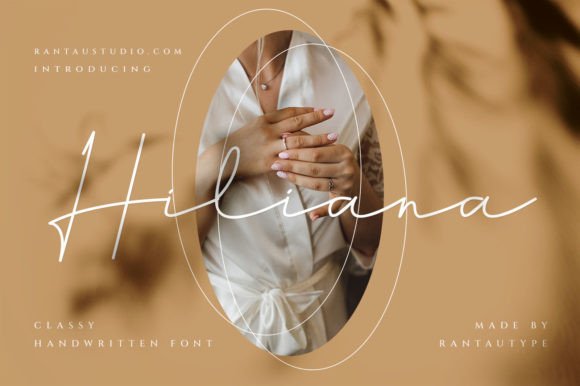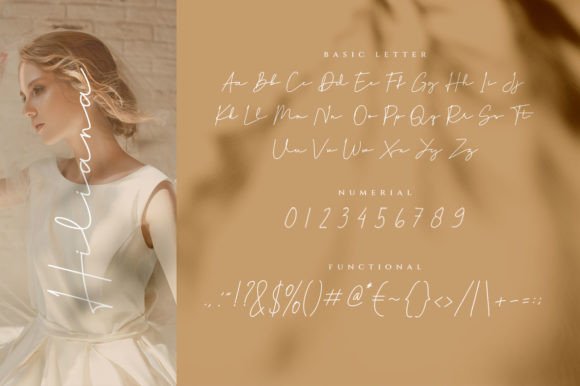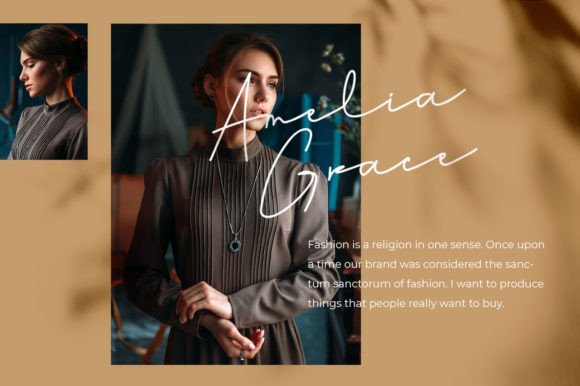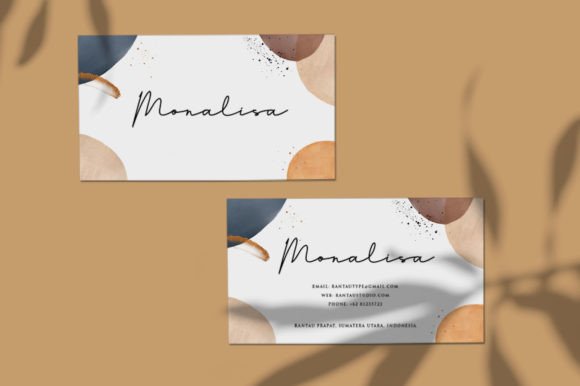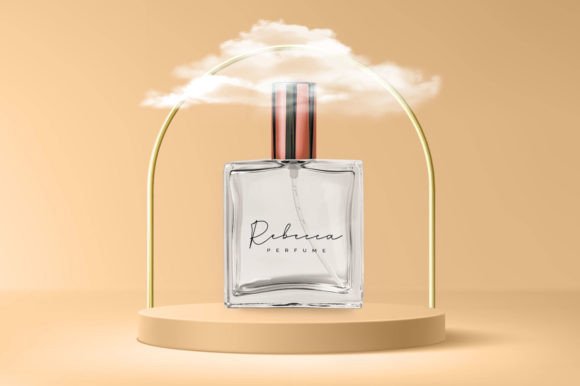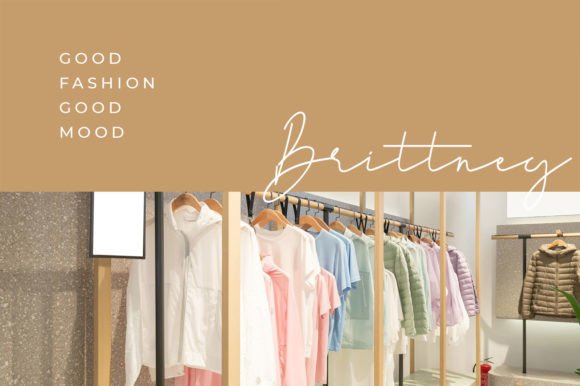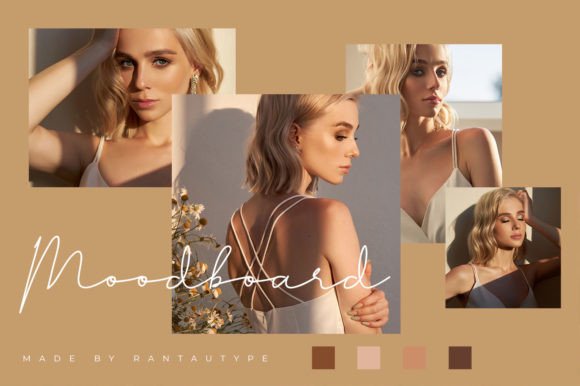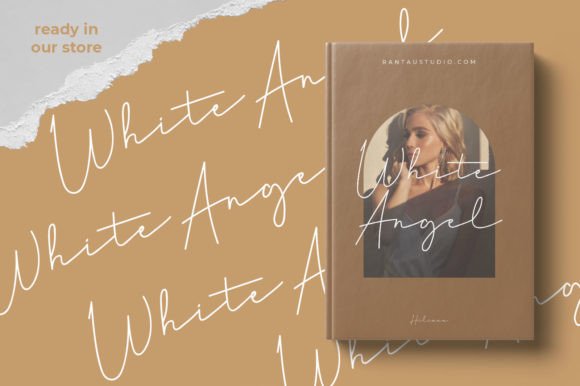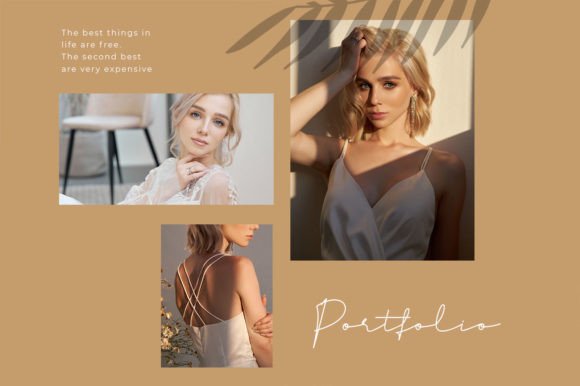
Hiliana Font
Add Classy Signature Style with Hiliana Font
The Hiliana font is a classy signature script that elevates your creative projects with its characteristic flow and elegant handwriting style. Perfectly suited for logos, signatures, quotes, badges, labels, packaging designs, blog headlines, and much more, Hiliana adds a refined and professional touch to your work.
Perfect for Branding, Packaging, and Digital Content
The Hiliana font shines in many applications such as brand logos, product packaging, personalized handwriting projects, badges, social media content, and editorial headlines. Its smooth, flowing strokes give every design a sophisticated and polished appearance.
A Handwritten Script with Elegant Flow
Each character in the Hiliana font is meticulously crafted with graceful curves and a signature-style flow that blends artistic elegance with readability. This font balances decorative beauty with clarity, making it ideal for headlines, logos, quotes, and decorative text.